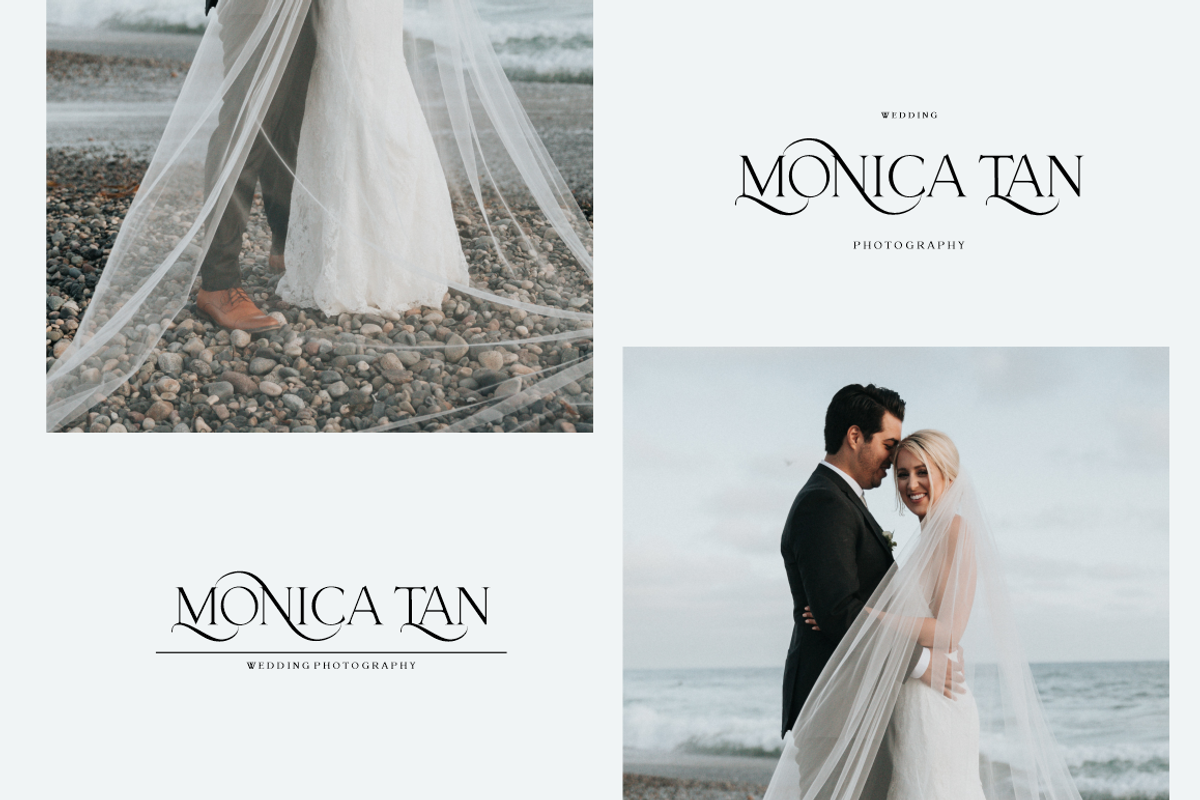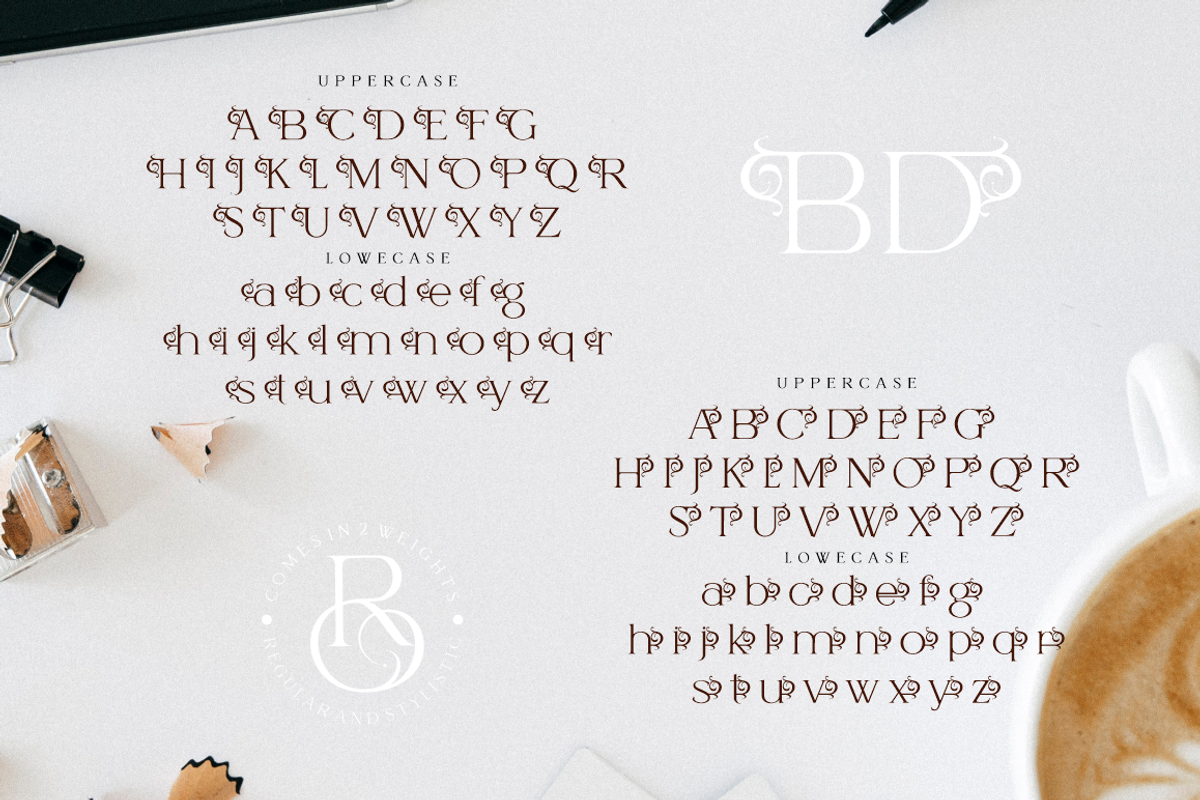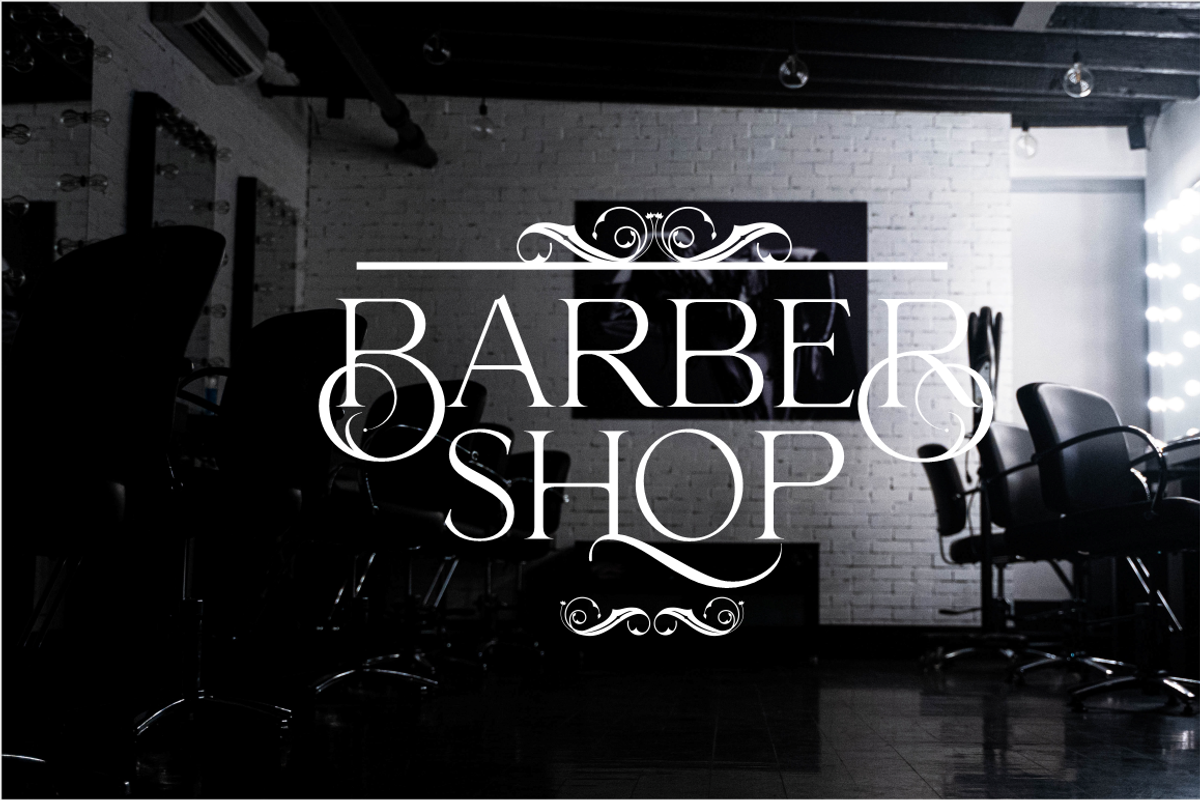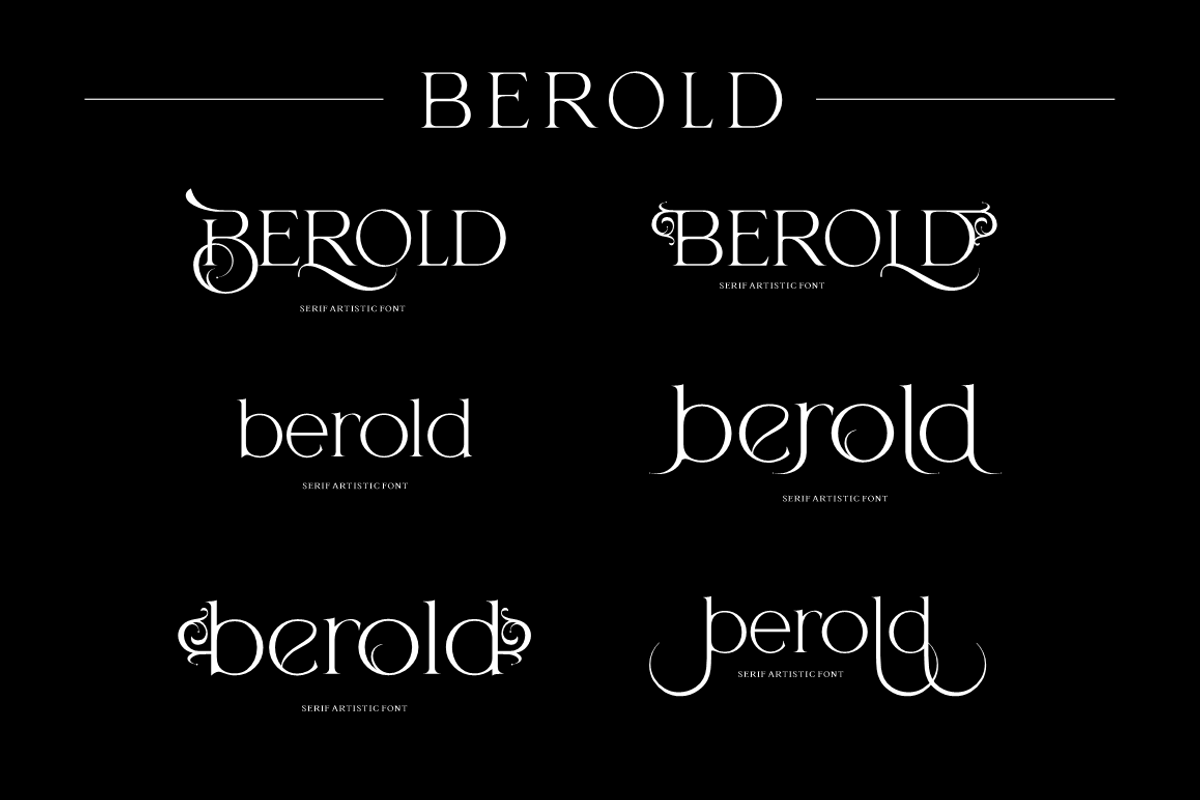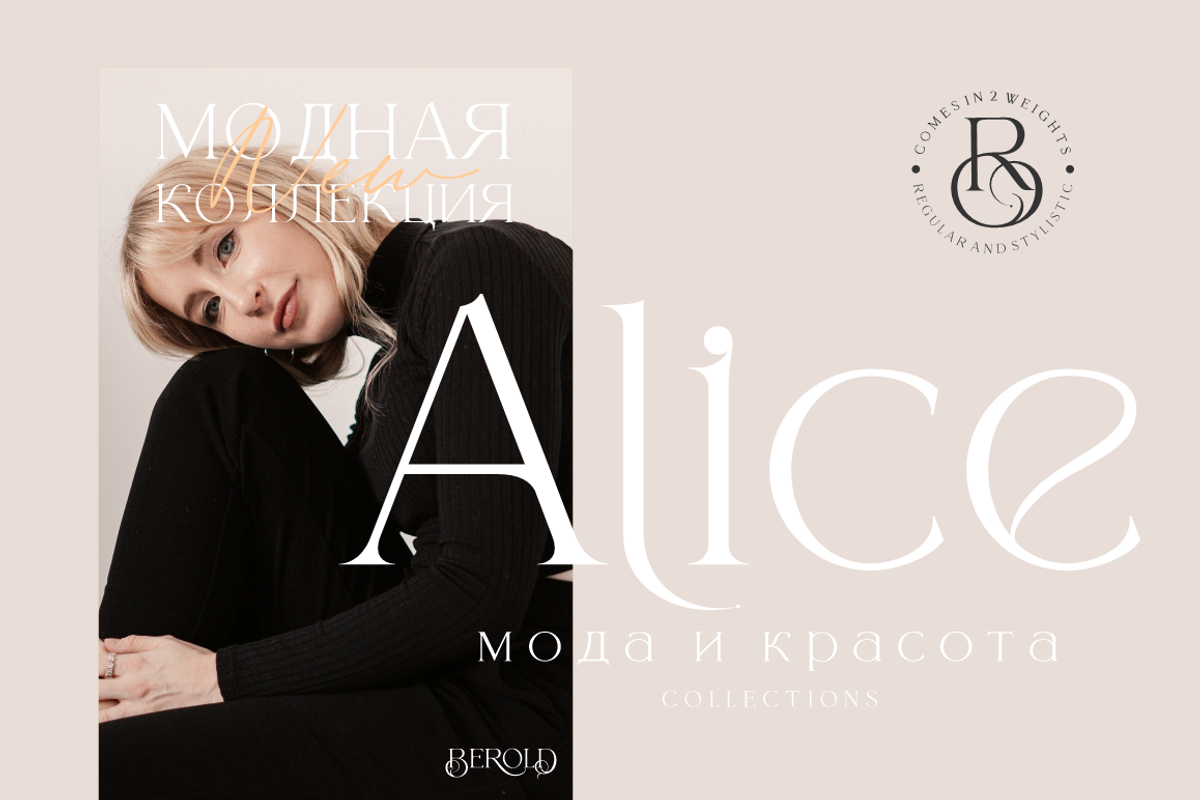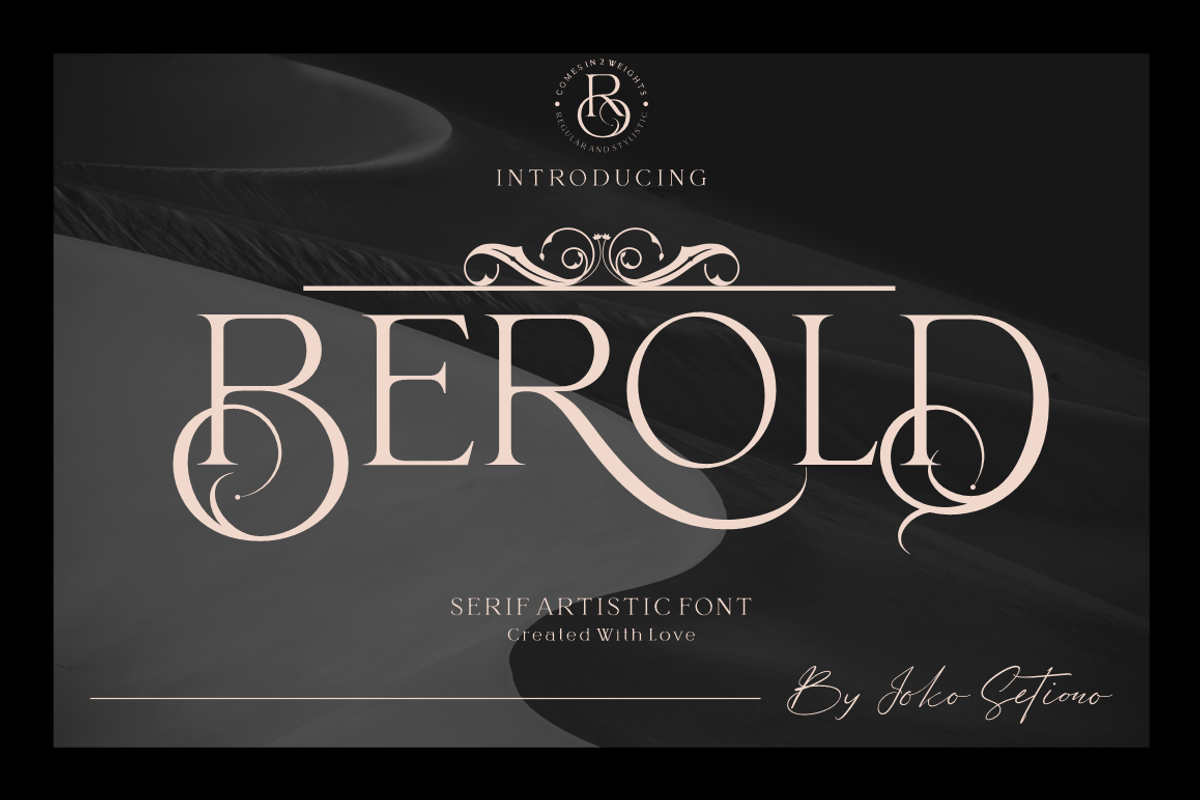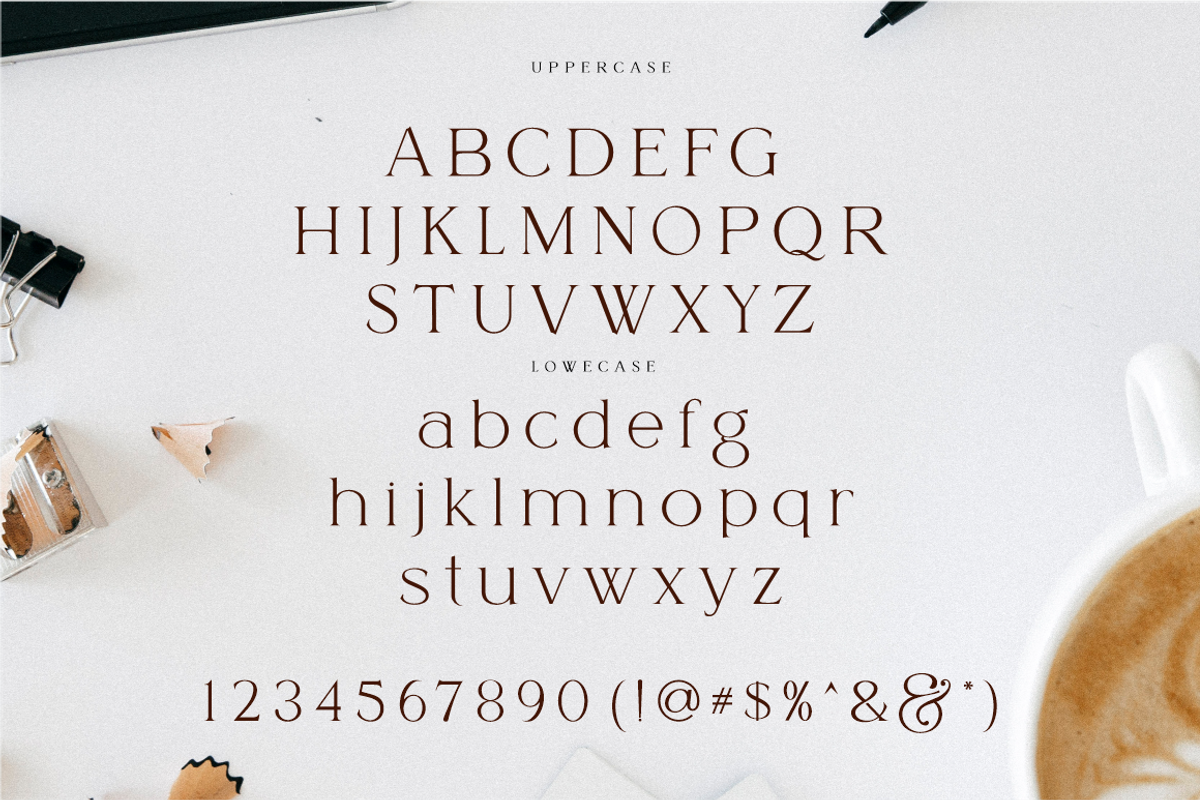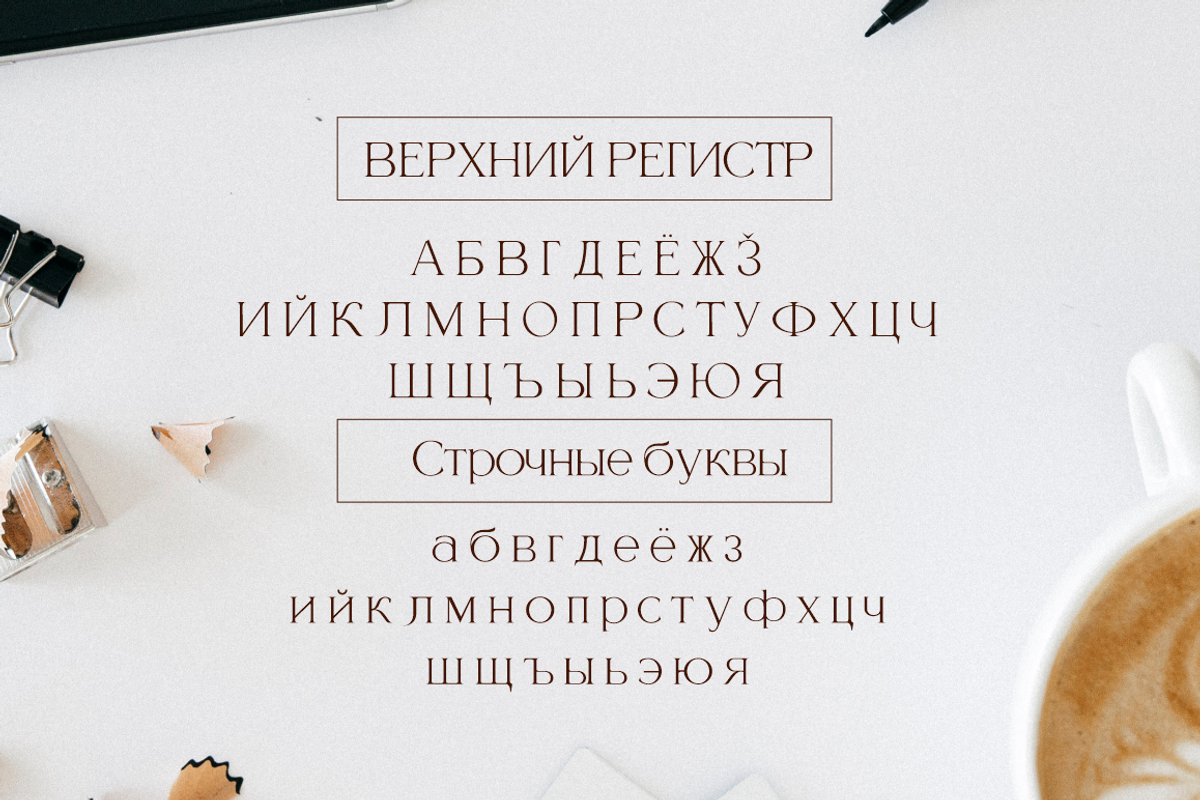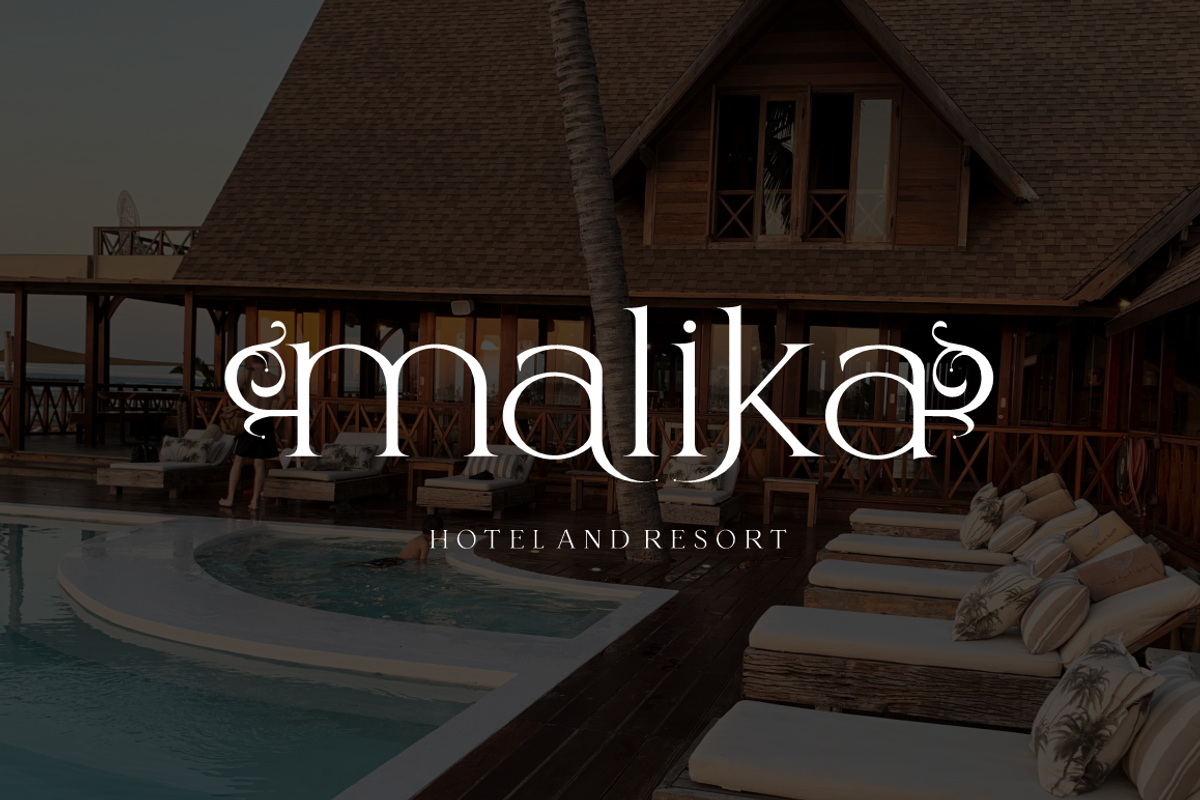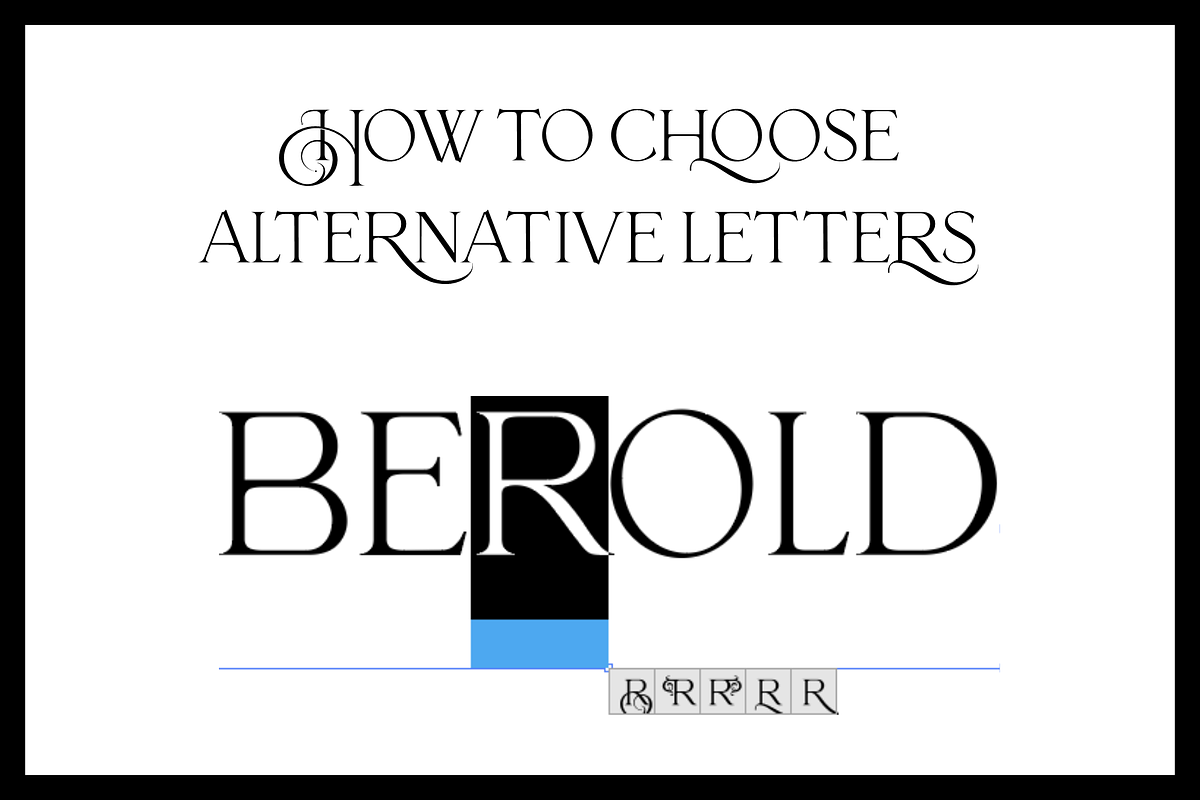
Berold - Artistic Serif Font
Berold, is a modern serif font in a classic style that has a distinct uppercase style. It's perfect for fashion, blog sites, instagram, branding, invitations, business cards, weddings and more. Includes 3 alternative character sets UPPERCASE AND LOWERCASE for word start and end appearance, so your design will look even more unique and interesting.
Berold Artistic
Beold font come with additional alternative features that will change your design the way you want. old style. modern. serif black Letter, clean, simple, you can change easily.
Beold Serif Font are very suitable to be your main choice in designing. your logo, invitation card, magazine, web and important projects.
Berold Serif Font also equipped with various languages, one of which is the Russian alphabet.
Anyone who gives this font a poor review just doesn't know how to use it. It's absolutely beautiful and contains all the variations shown in the images. Brilliant!